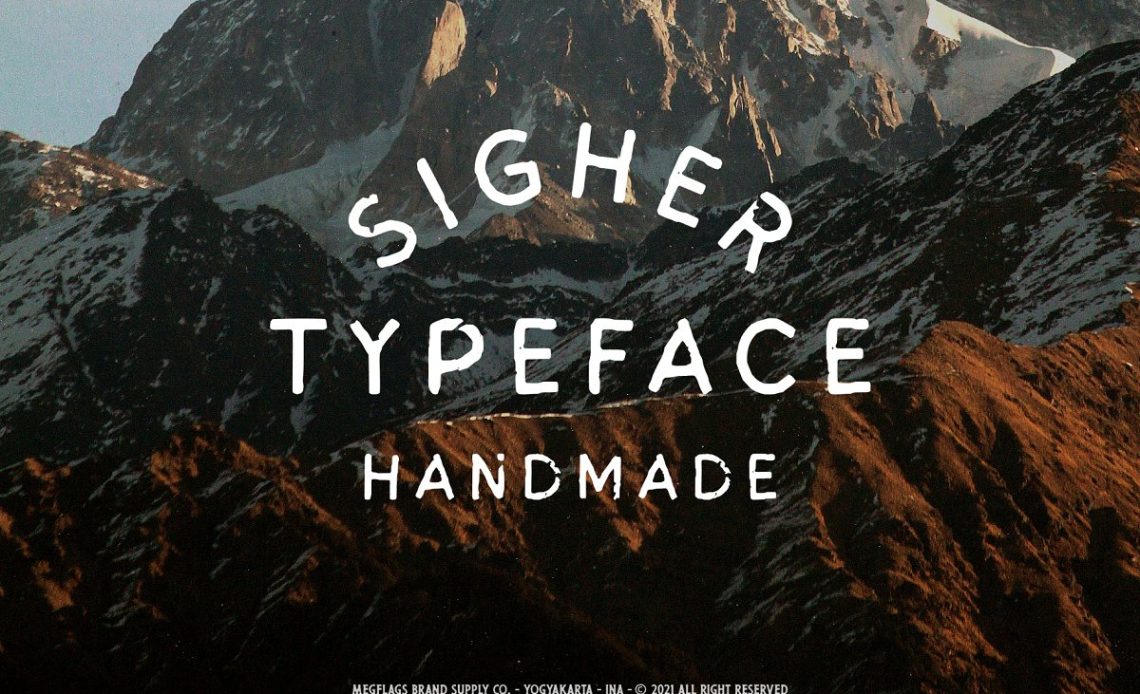
Introducing the captivating Handmade Sigher Typeface, a font family that will transport you to a world of vintage charm and grunge appeal. Created by the talented Fahrenno Asnawan, this handmade font is meticulously crafted to add a unique touch to your designs.
Are you searching for the perfect font to elevate your vintage logo? Look no further! Handmade Sigher Typeface is specifically designed with your needs in mind. It effortlessly captures the essence of bygone eras, allowing you to create logos that exude timeless elegance and evoke nostalgic emotions.
With its intricate details and authentic vintage feel, Handmade Sigher Typeface is a true gem in the world of fonts. Each letter is a work of art, carefully crafted to capture the essence of grunge lettering. The result is a font that breathes life into your designs, making them stand out from the crowd.
But Handmade Sigher Typeface is not just limited to logos. Its versatility knows no bounds! Use it to create eye-catching headlines, captivating posters, or even unique social media graphics. The possibilities are endless, and your creativity is the only limit.
Imagine the impact Handmade Sigher Typeface will have on your projects. It will transport your audience to a different time, captivating their attention and leaving a lasting impression. Whether you're designing for a vintage-inspired brand, a trendy cafe, or a music festival, this font will add that extra touch of authenticity and personality.
Don't settle for ordinary fonts that fail to make a statement. Handmade Sigher Typeface is here to revolutionize your designs and take them to new heights. Its emotional appeal and captivating aesthetics will make your creations unforgettable.